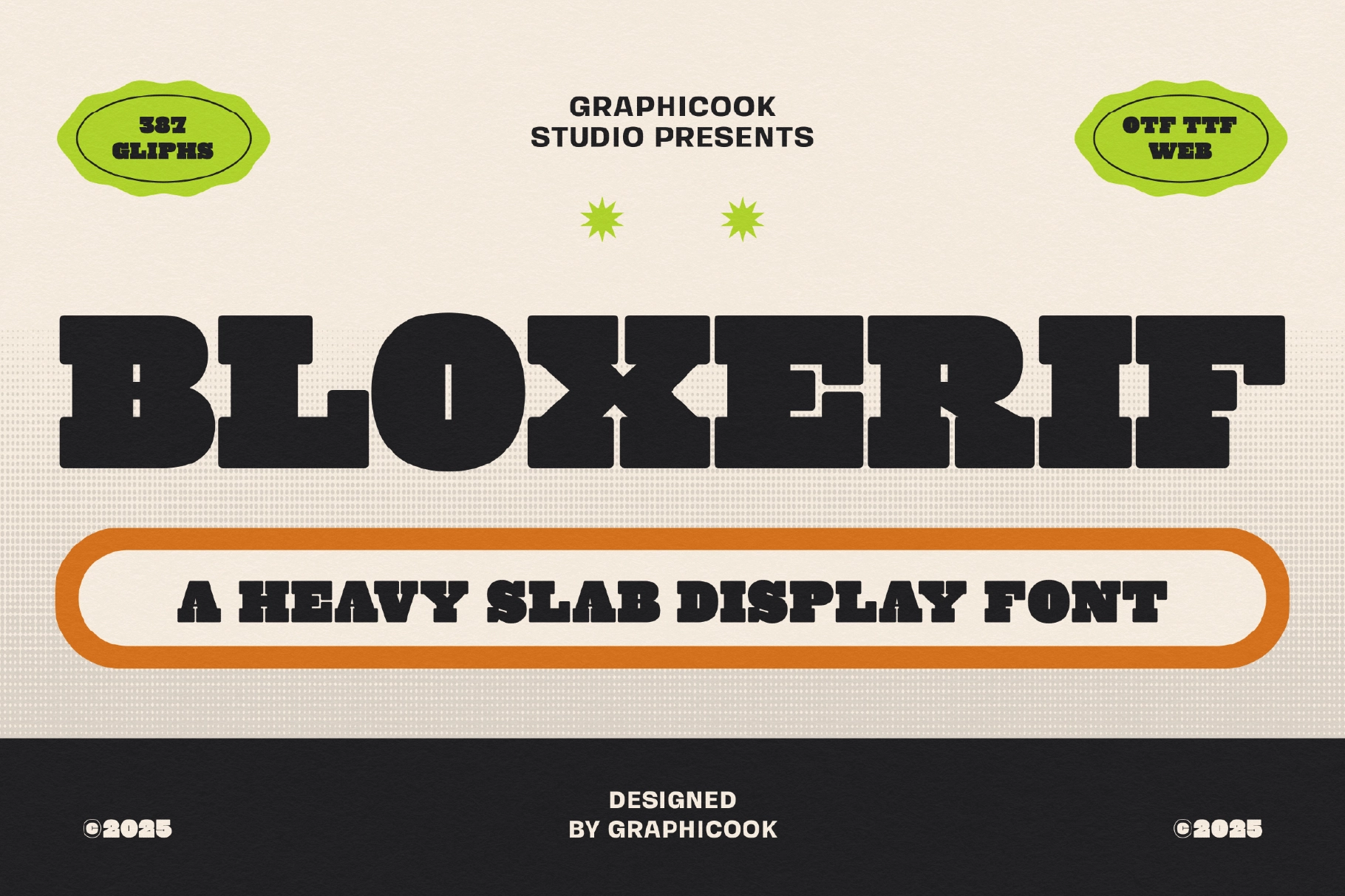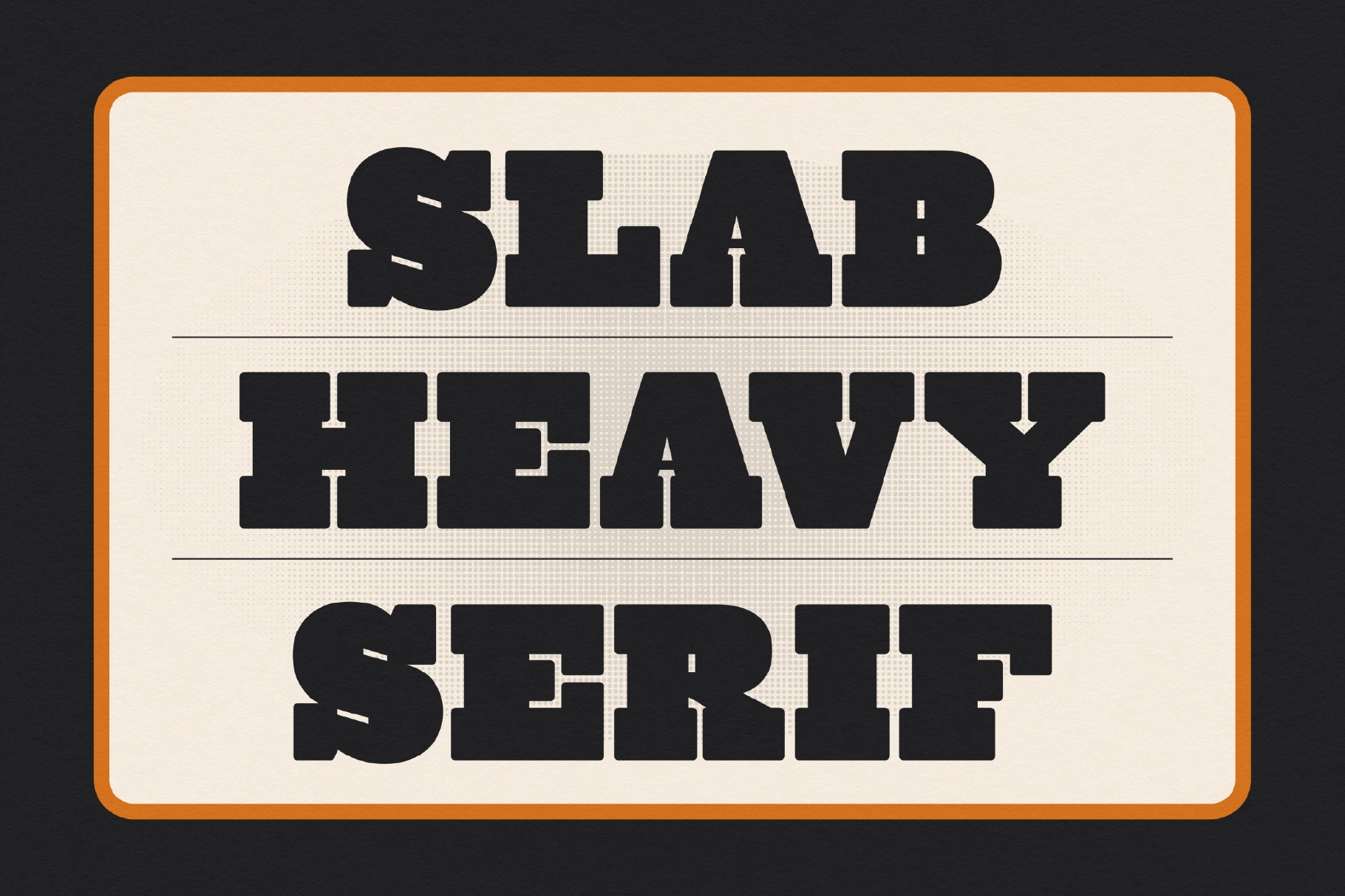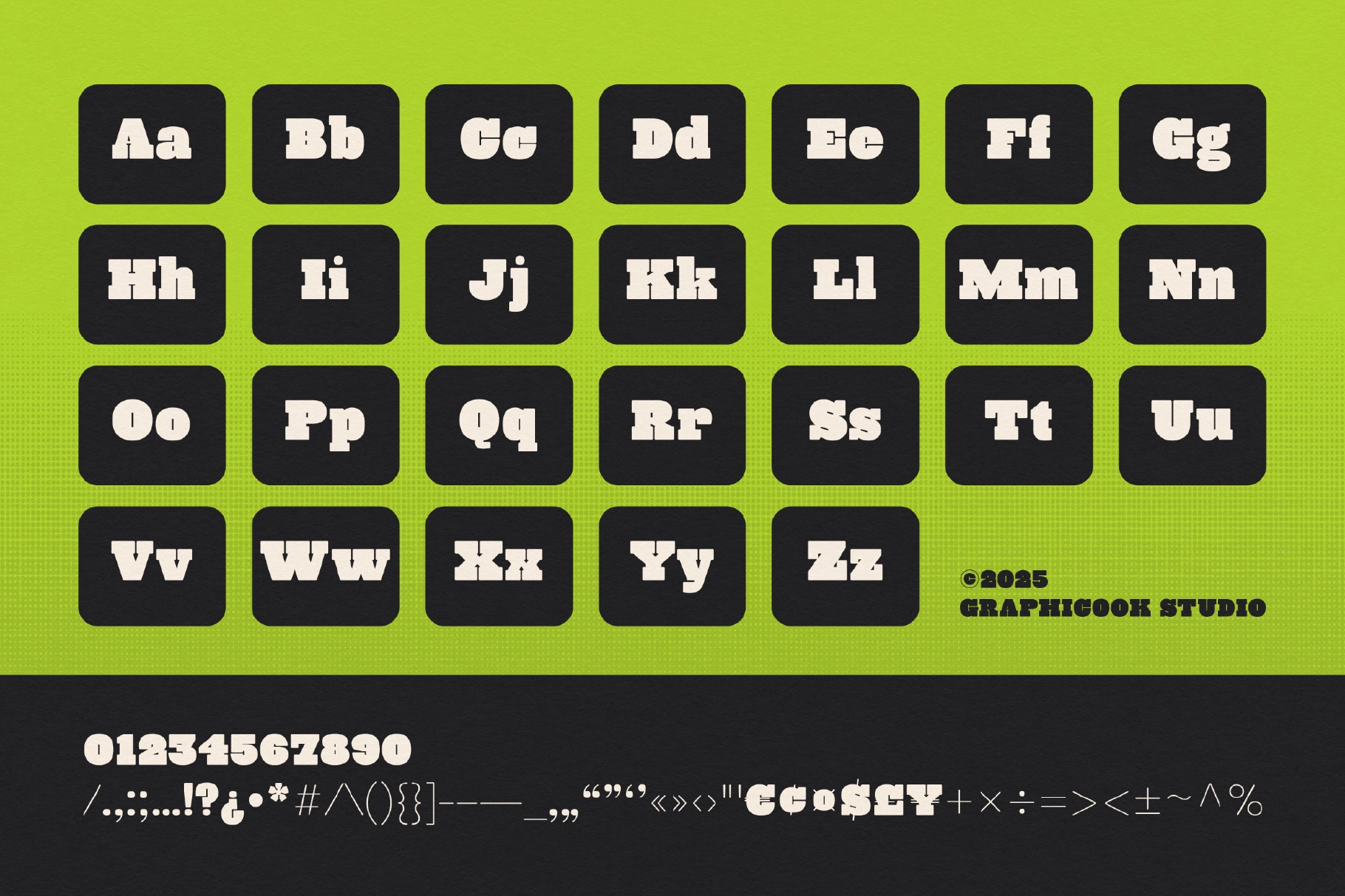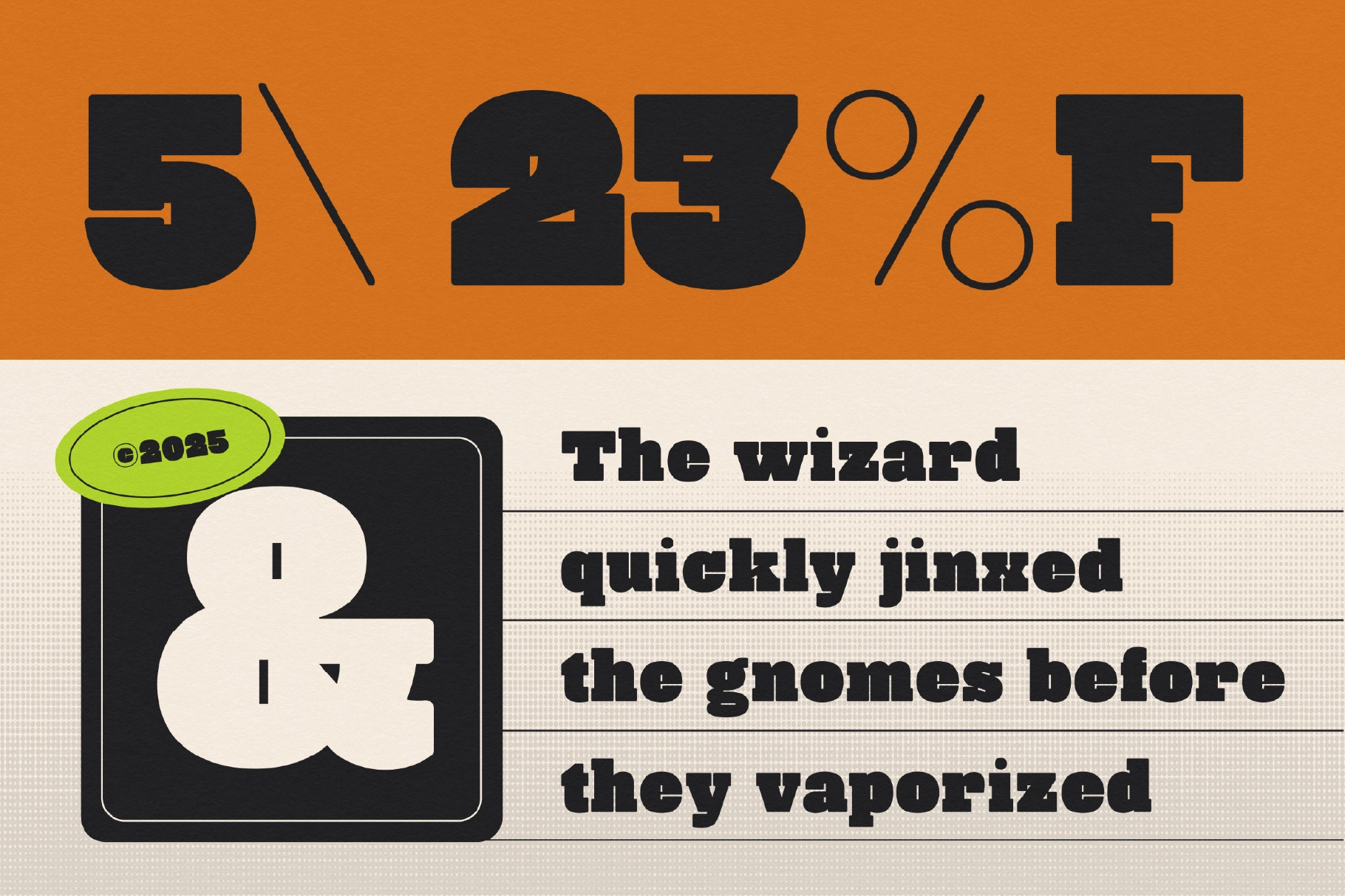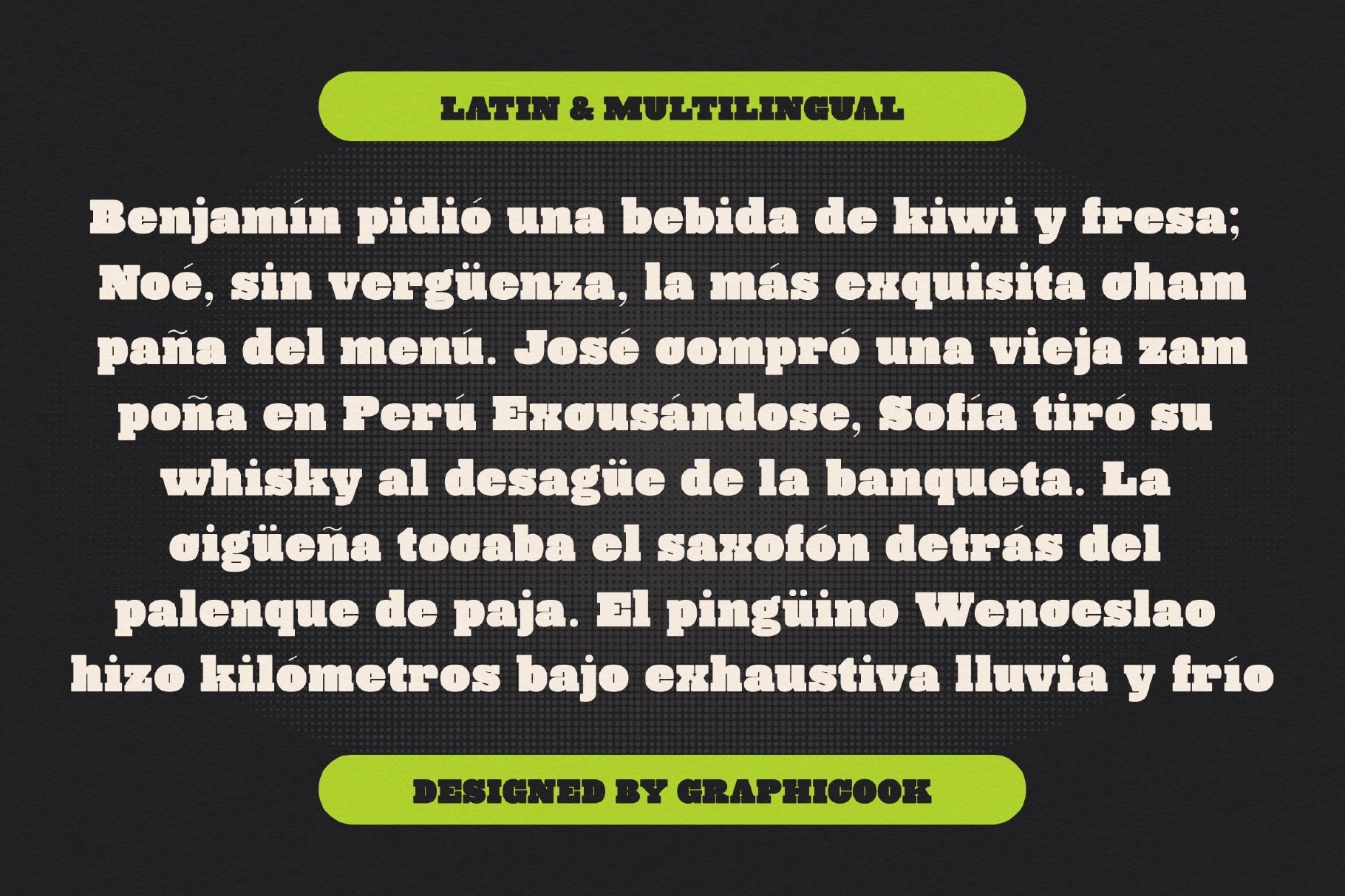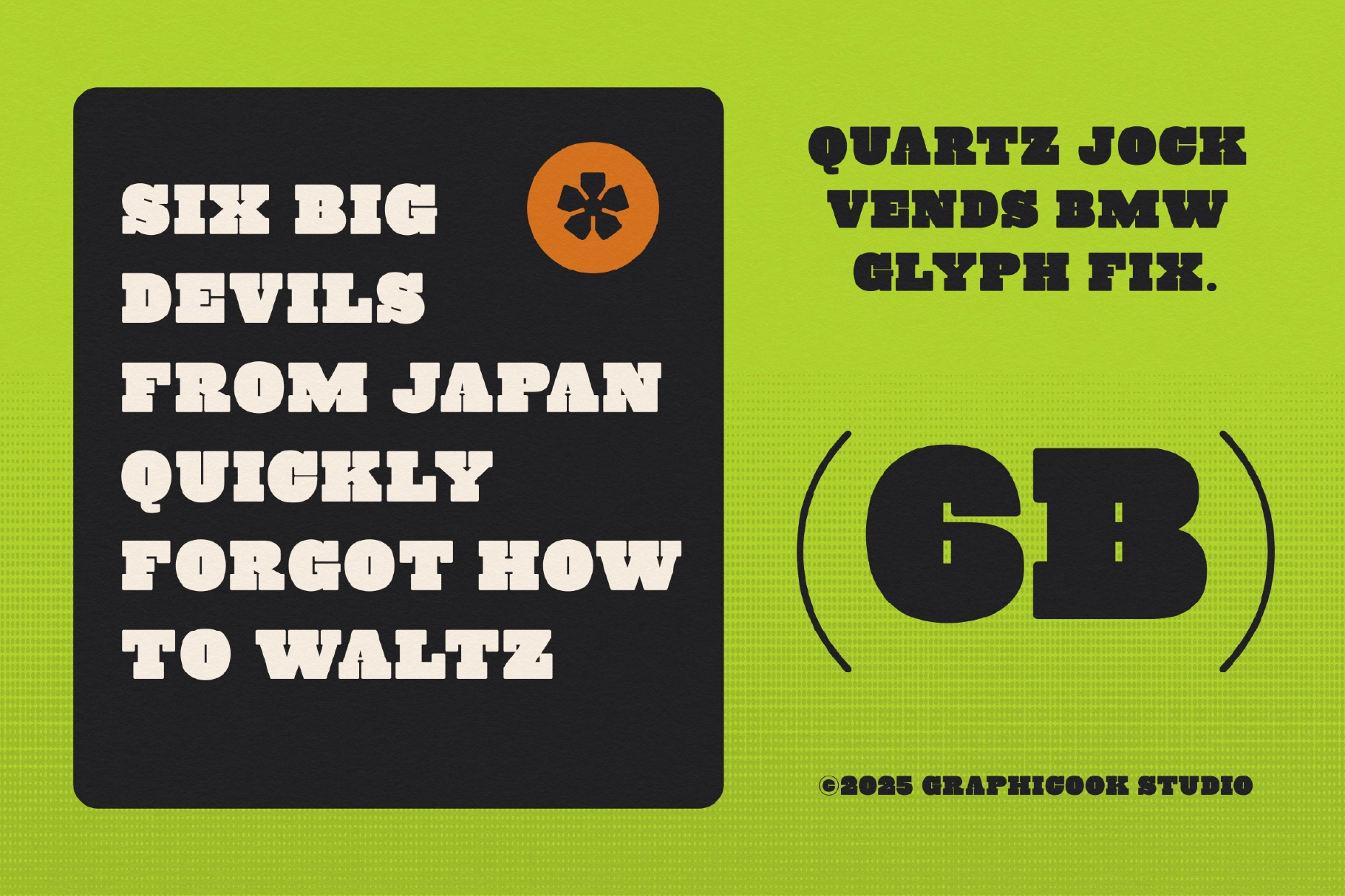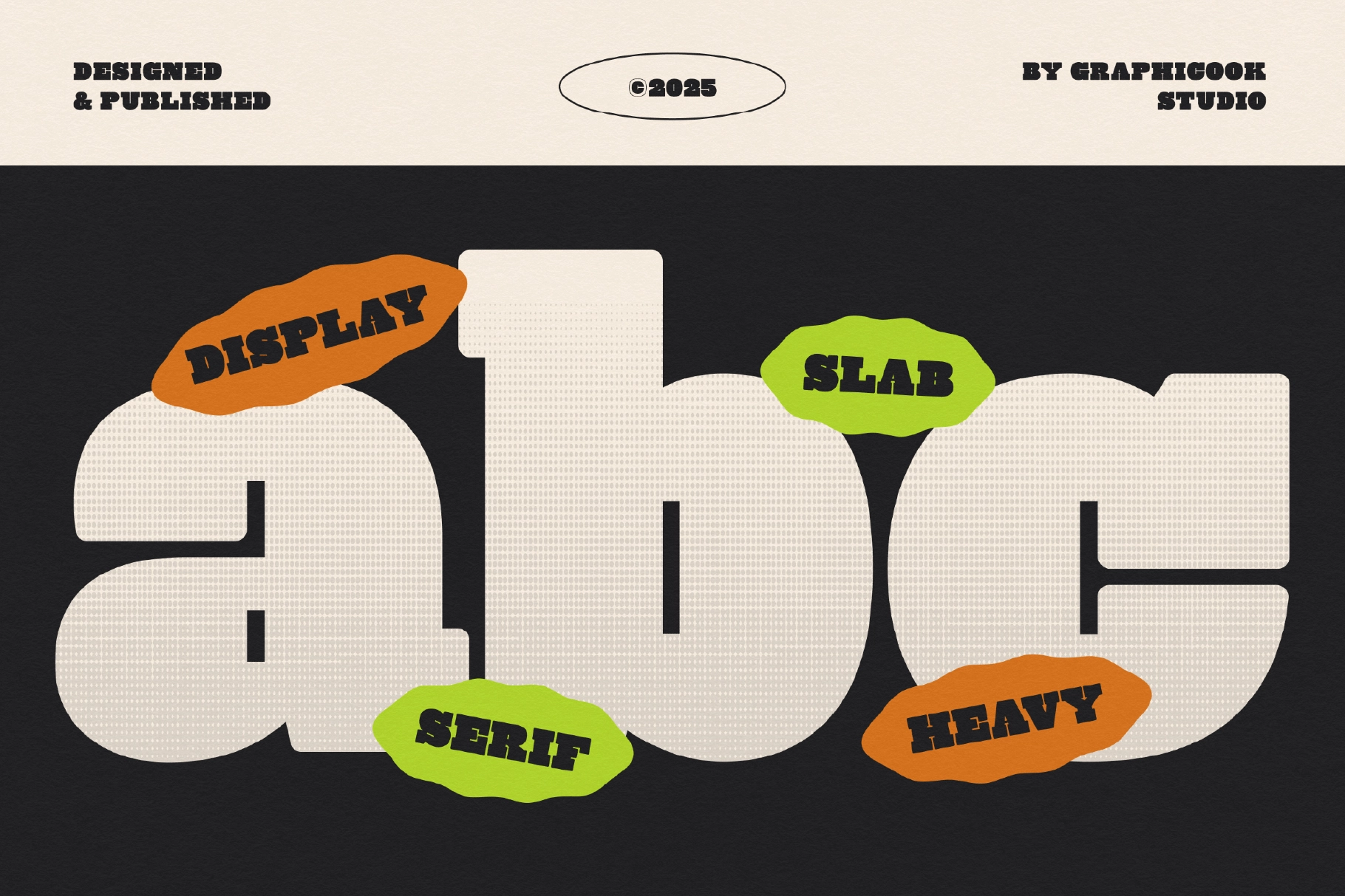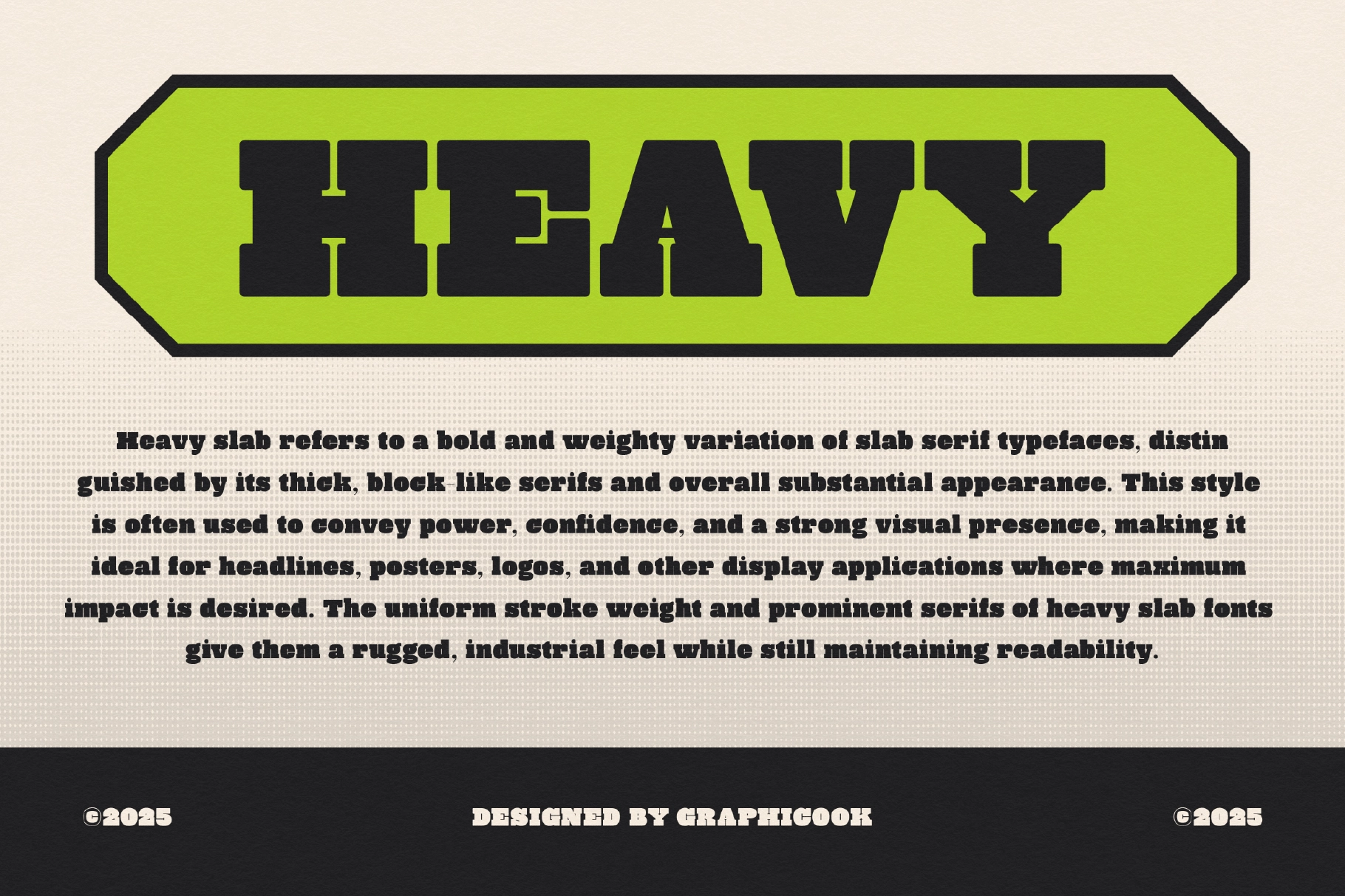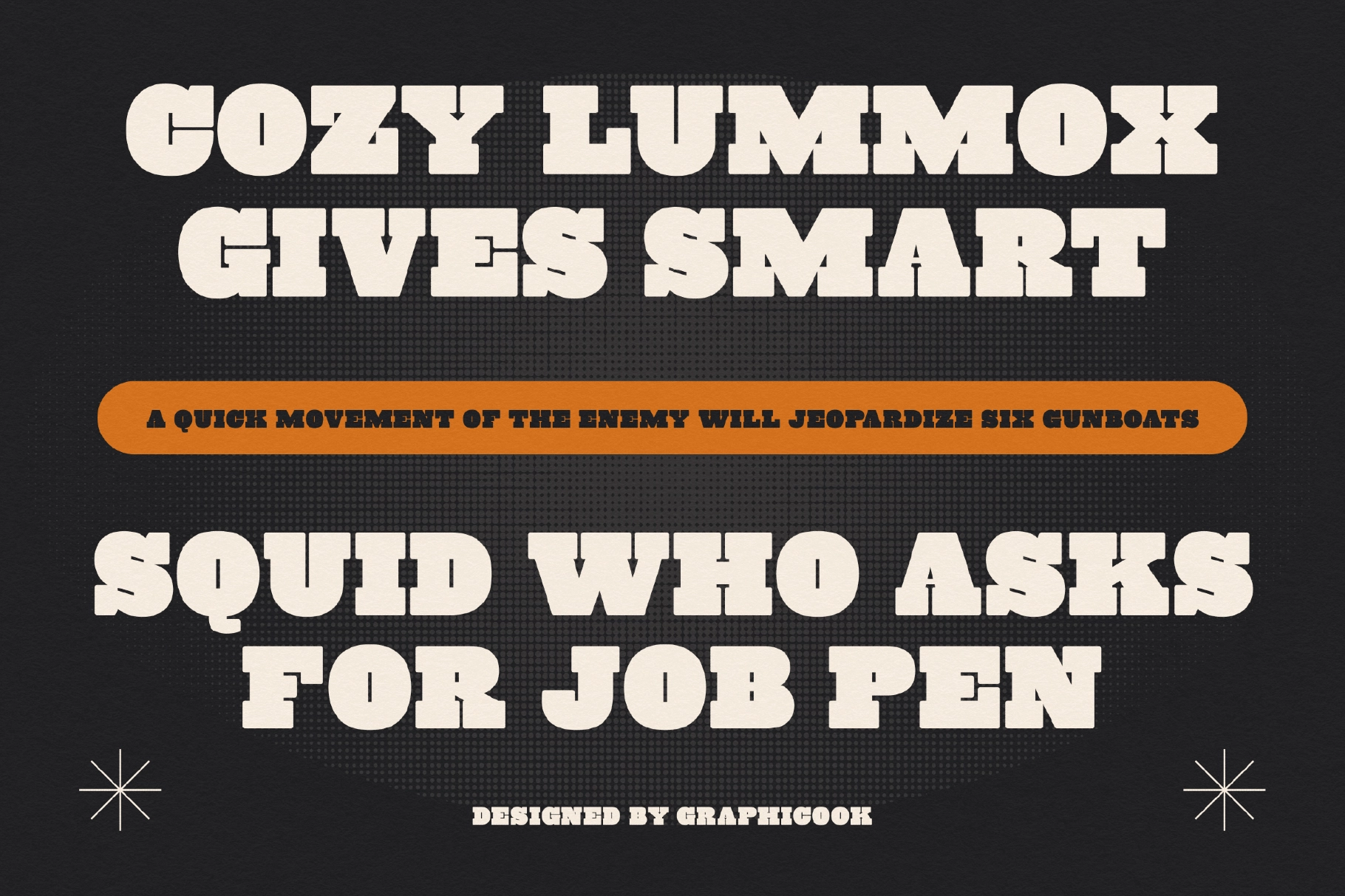
Bloxerif Font
Bloxerif is a slab-serif font featuring boxy, bold letterforms that convey a strong and masculine impression. It's ideal for logos or headlines that demand high visual impact.